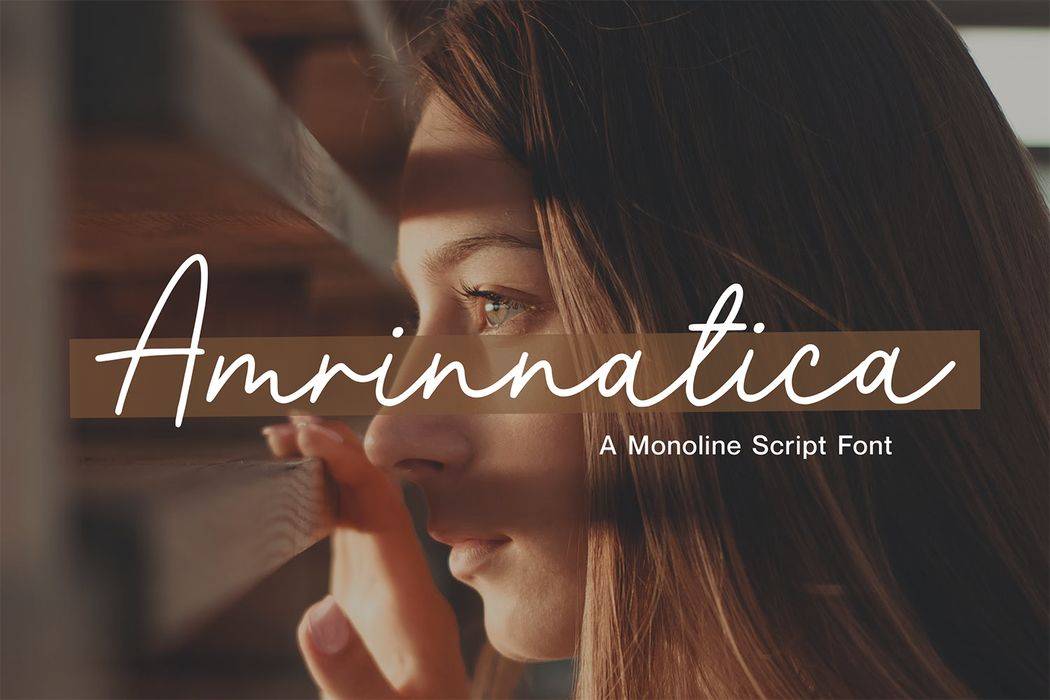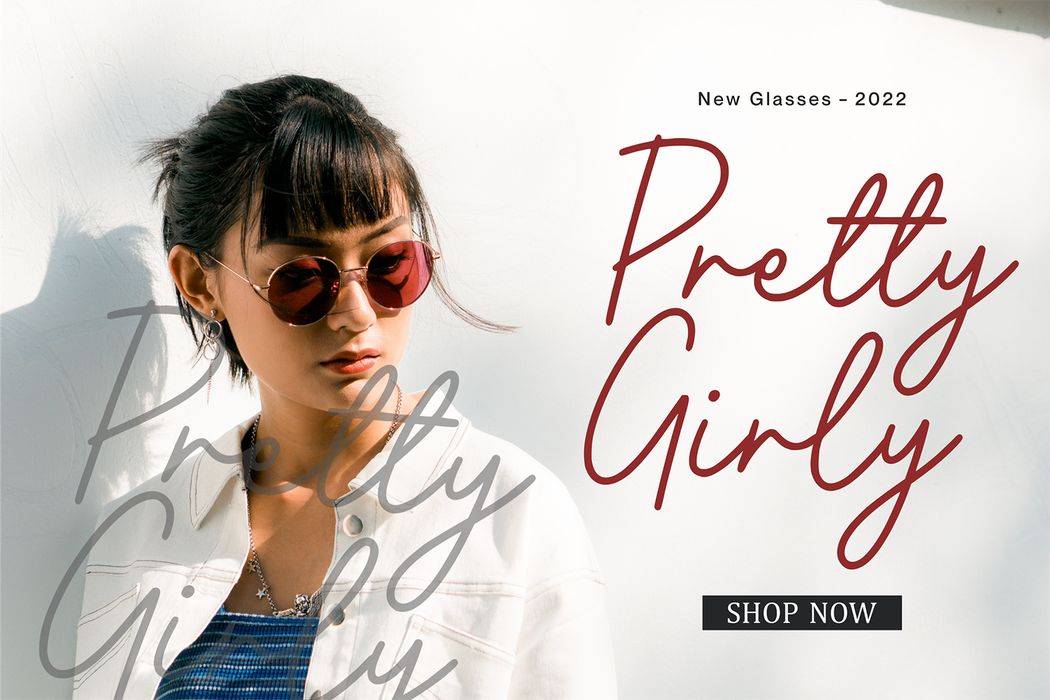
Amrinnatica is a slender, handwritten script font with a casual and elegant feel, featuring tall, narrow letterforms and a smooth, flowing style that mimics natural handwriting. Its light weight and airy spacing give it a delicate and approachable personality, perfect for adding a personal touch to designs. This font works well for invitations, branding, and creative projects that aim for a warm, intimate, and stylish look.
Amrinnatica Font